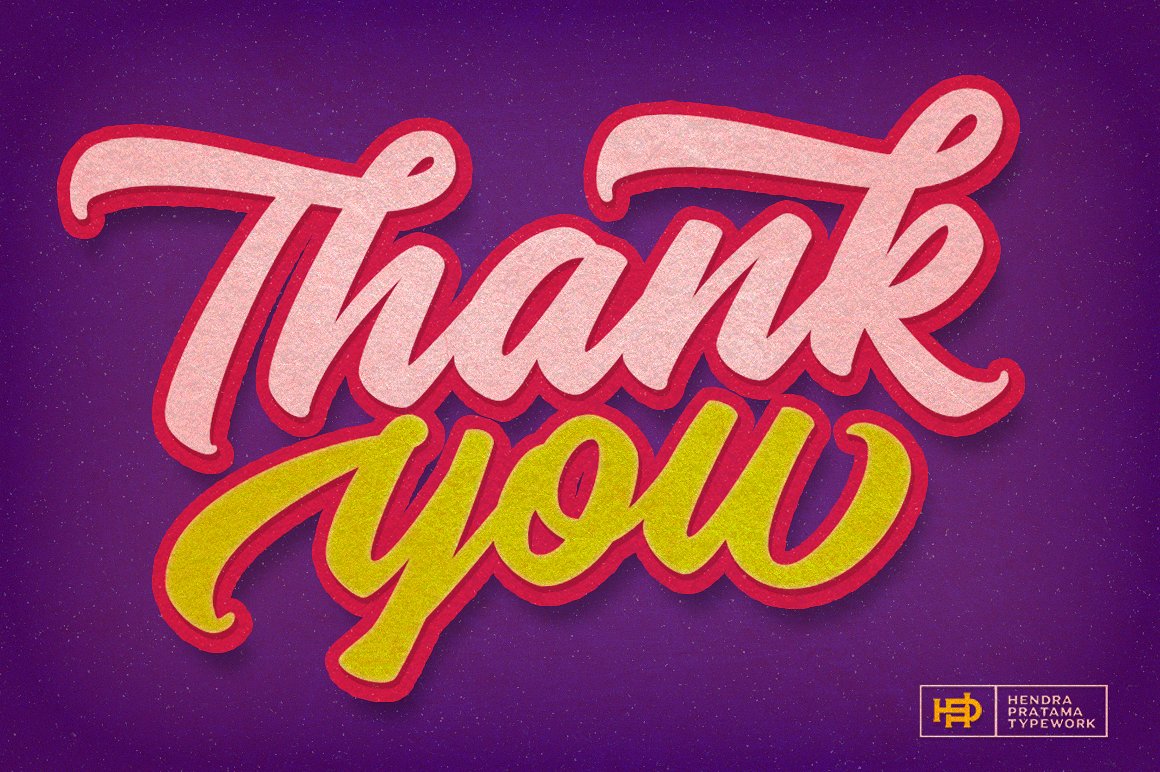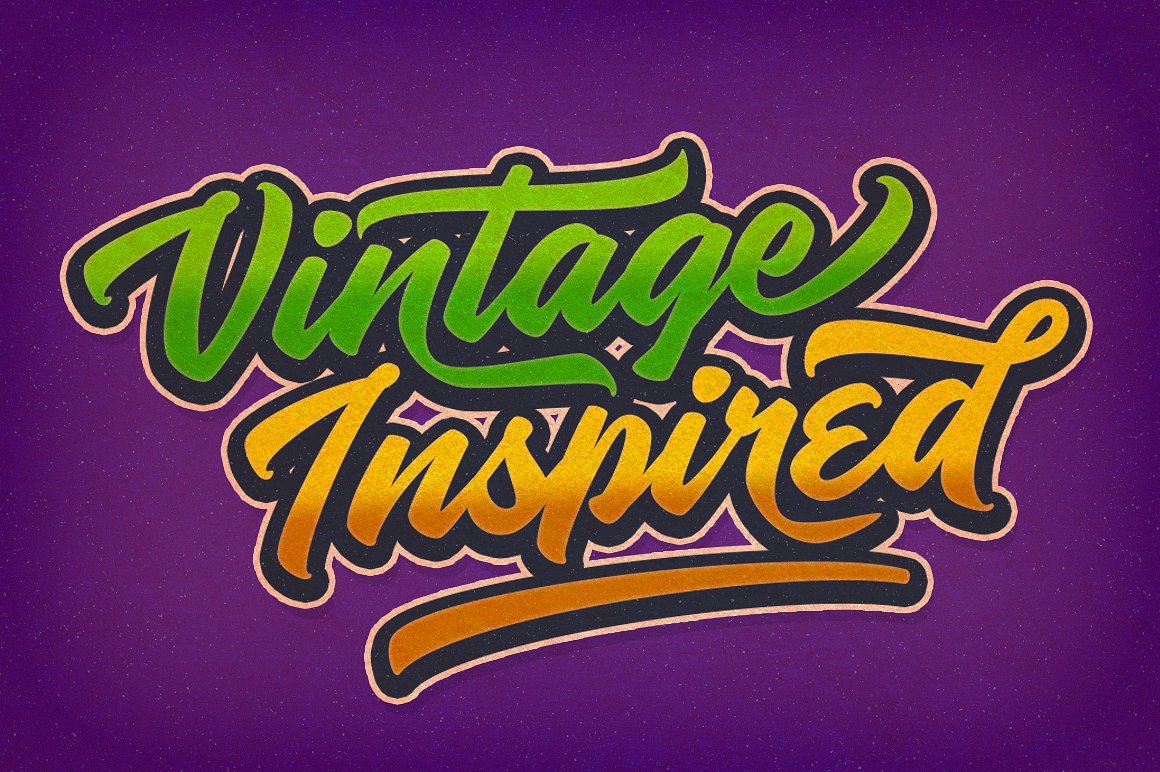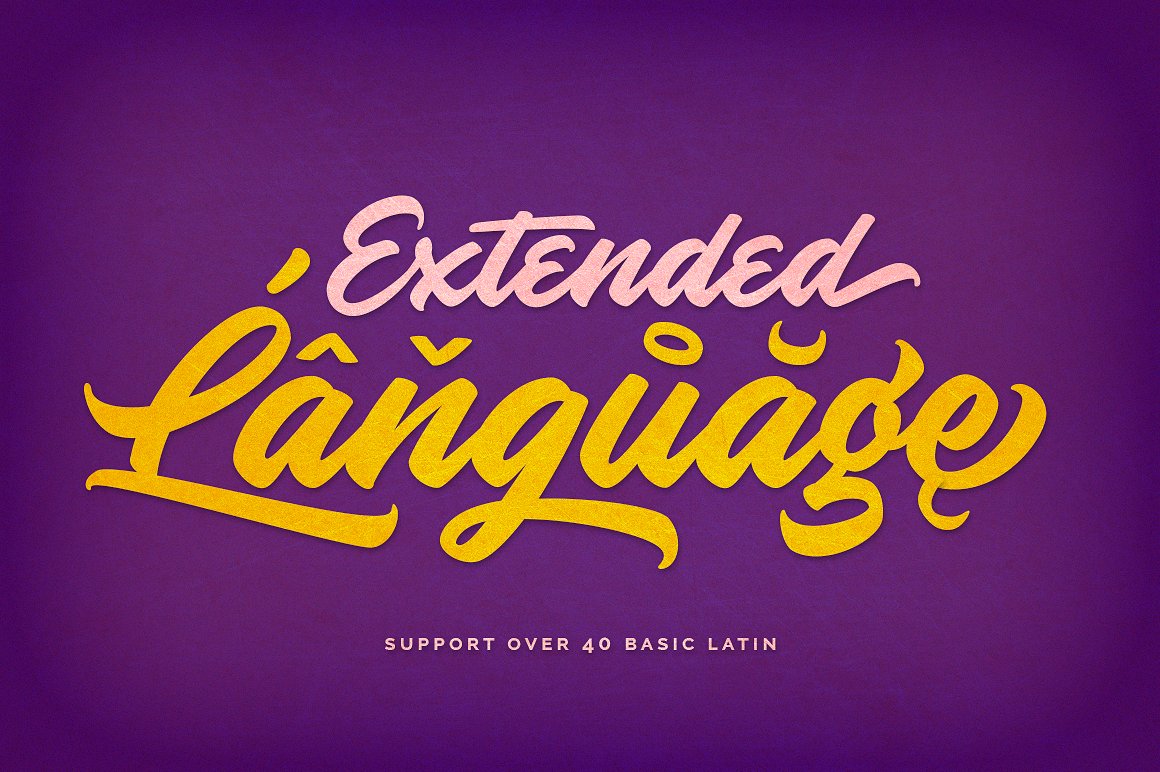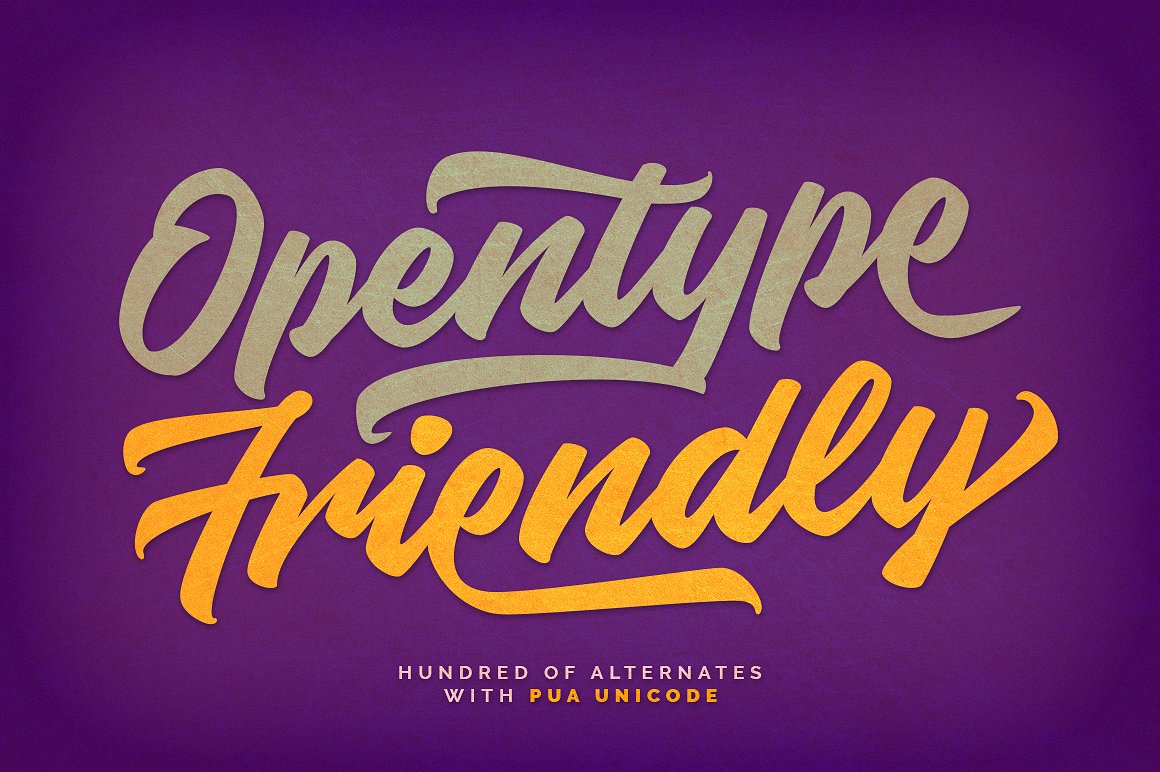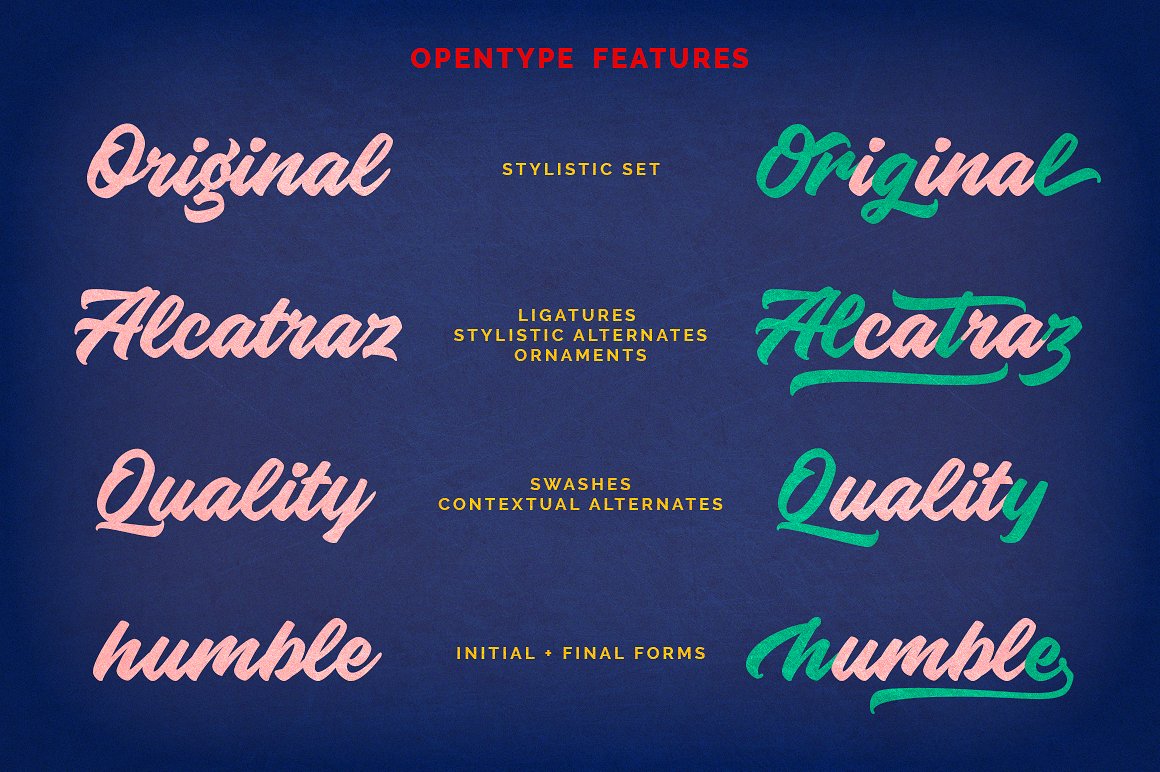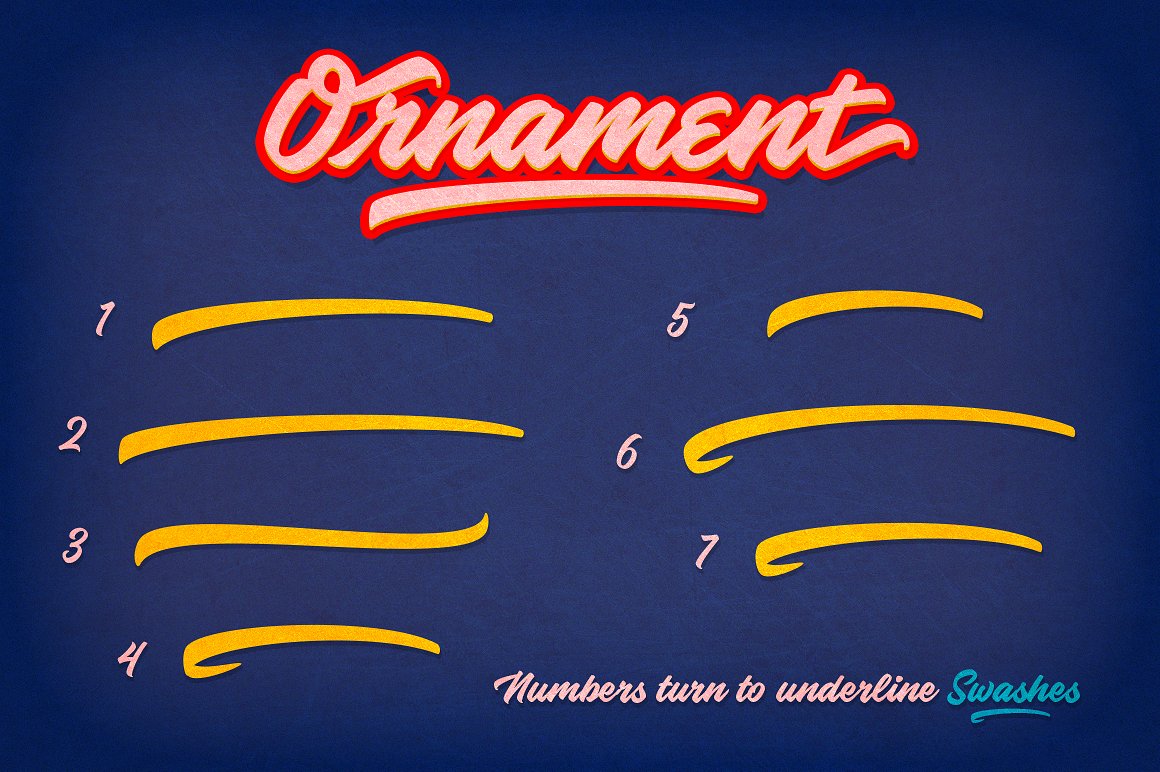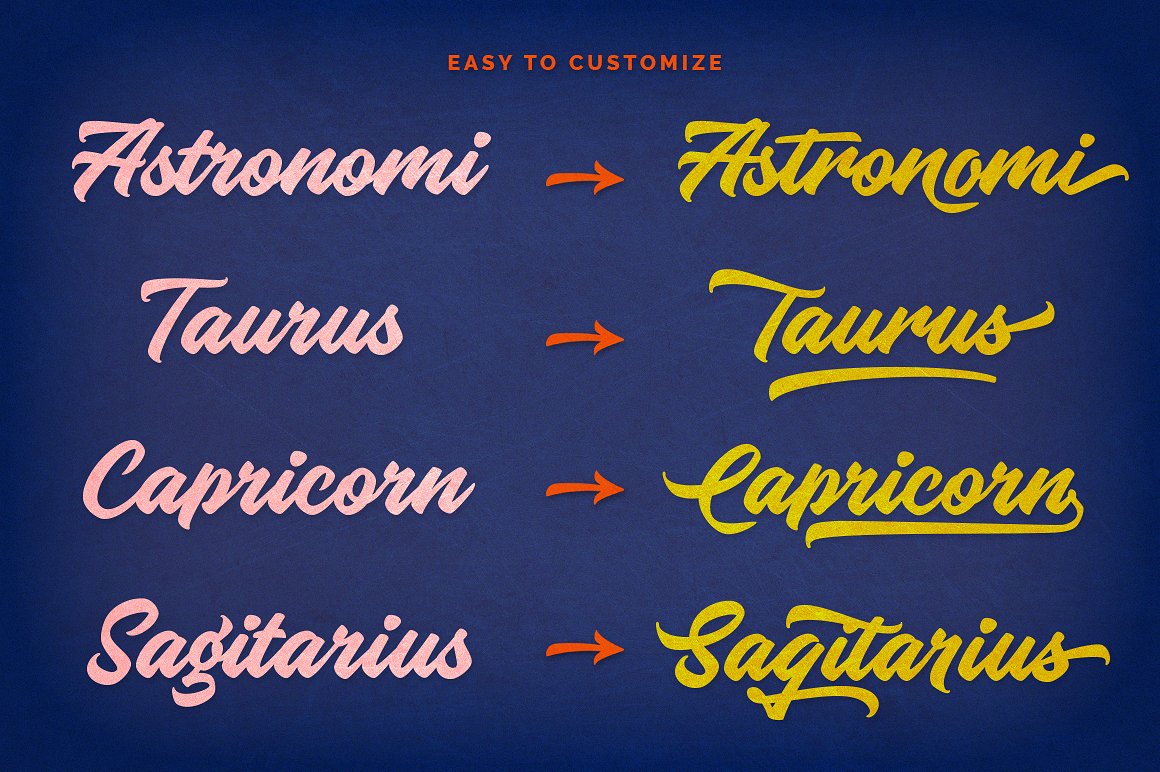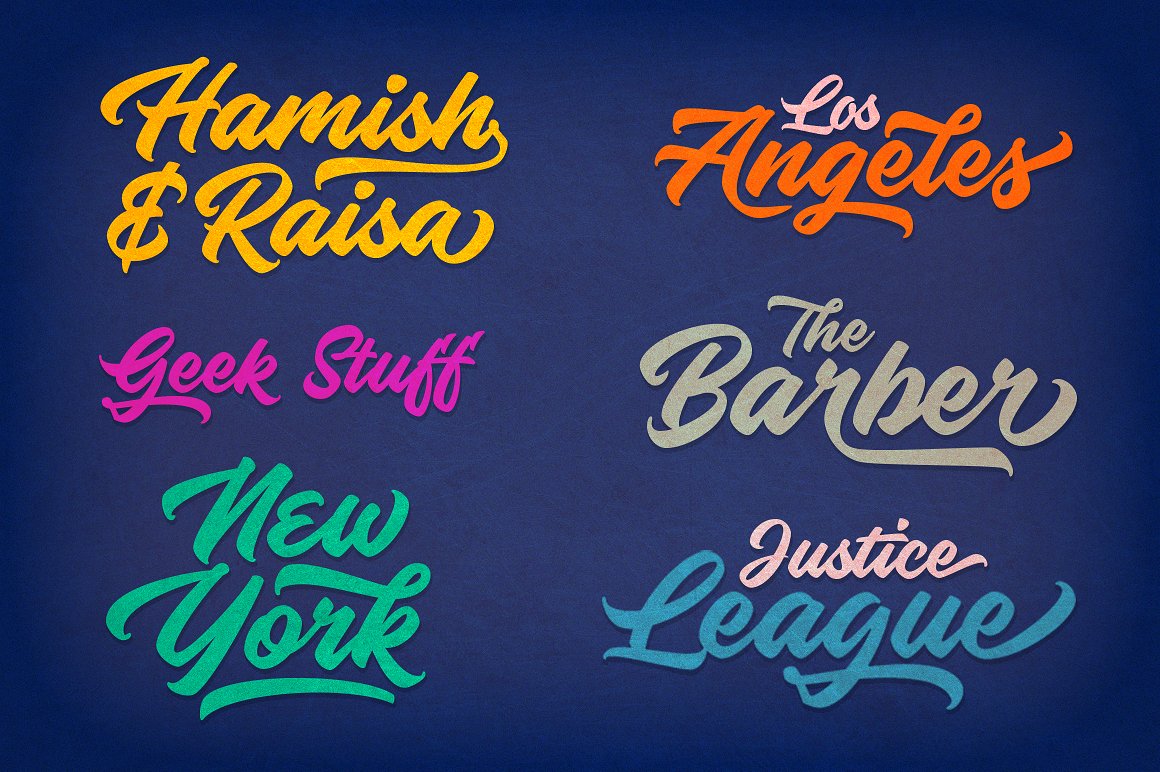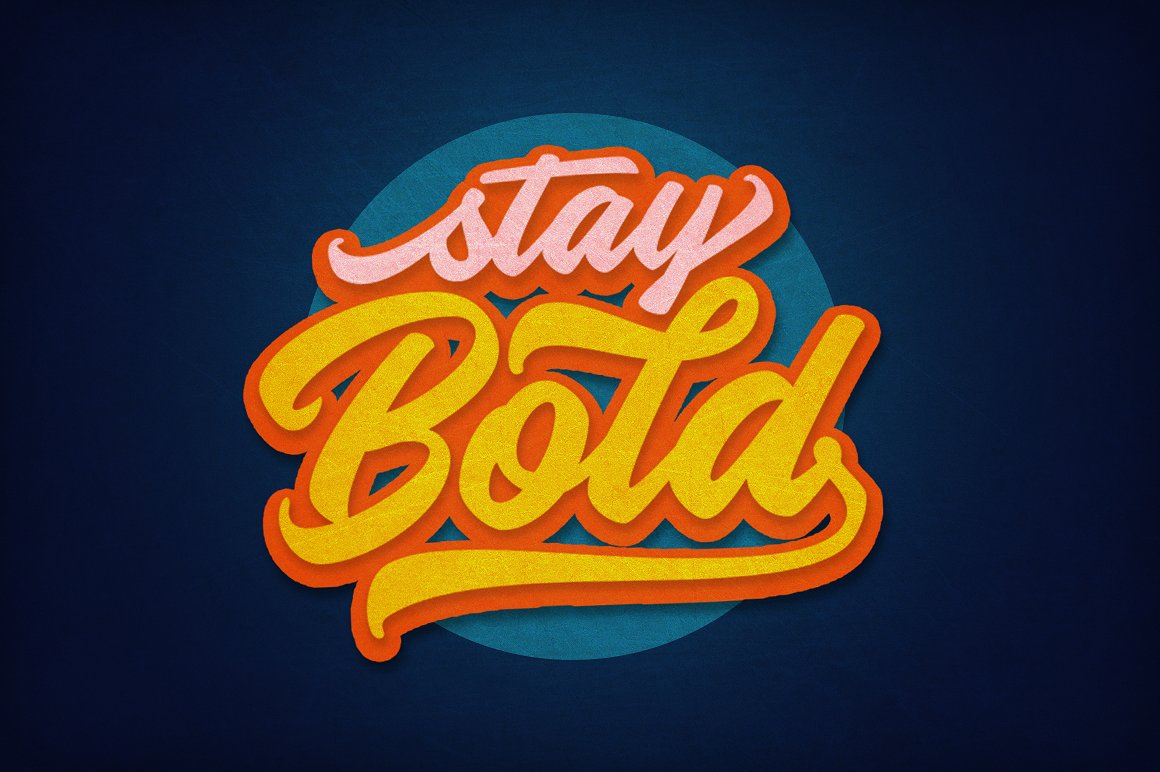
Knight Brush Font
About Knight Brush Font
Inspired by vintage storefront design, Knight Brush is an extremely adaptable font. Made to resemble brush painting, this font is the perfect choice for a multitude of bold design ideas.
This strong signage script is both glamorous and strong, making it a necessity to any font collection.